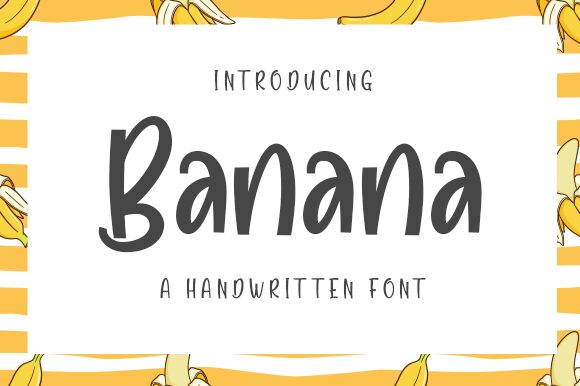
Banana, designed by Nirmala Creative, is a delightful display font with a charming cartoon style. Its semi-light weight and semi-condensed width give it a balanced and playful look. With its handwritten touch, this font is perfect for projects that aim to evoke a sense of whimsy and joy. Use Banana for children's book covers, playful advertisements, animated logos, or even as a fun accent in social media graphics. Let your creativity flow with Banana as it adds a touch of whimsical charm to your designs!